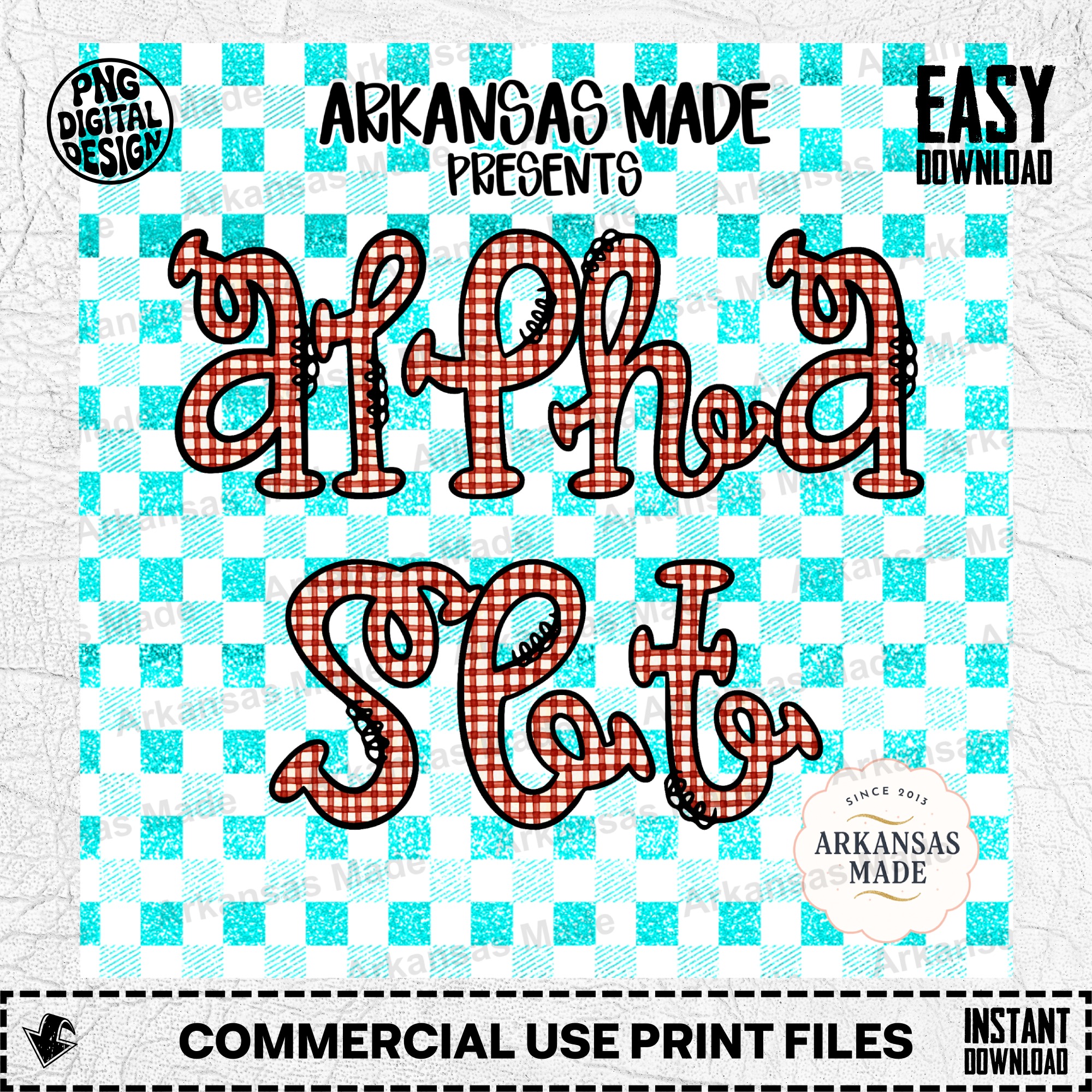
Red Gingham Alpha Set PNG | Buffalo Plaid Letters Farmhouse Font Digital Download for Crafters, Cute Country Alphabet
Get this charming Red Gingham Alpha Set PNG, perfect for sublimation and digital crafting! Features adorable buffalo plaid letters with a farmhouse font. This versatile digital download is ideal for crafters, small business owners, and anyone who loves rustic, country, or picnic themes. Create custom t-shirts, mugs, party decor, or personalized gifts with ease, adding a touch of cozy charm to any design.